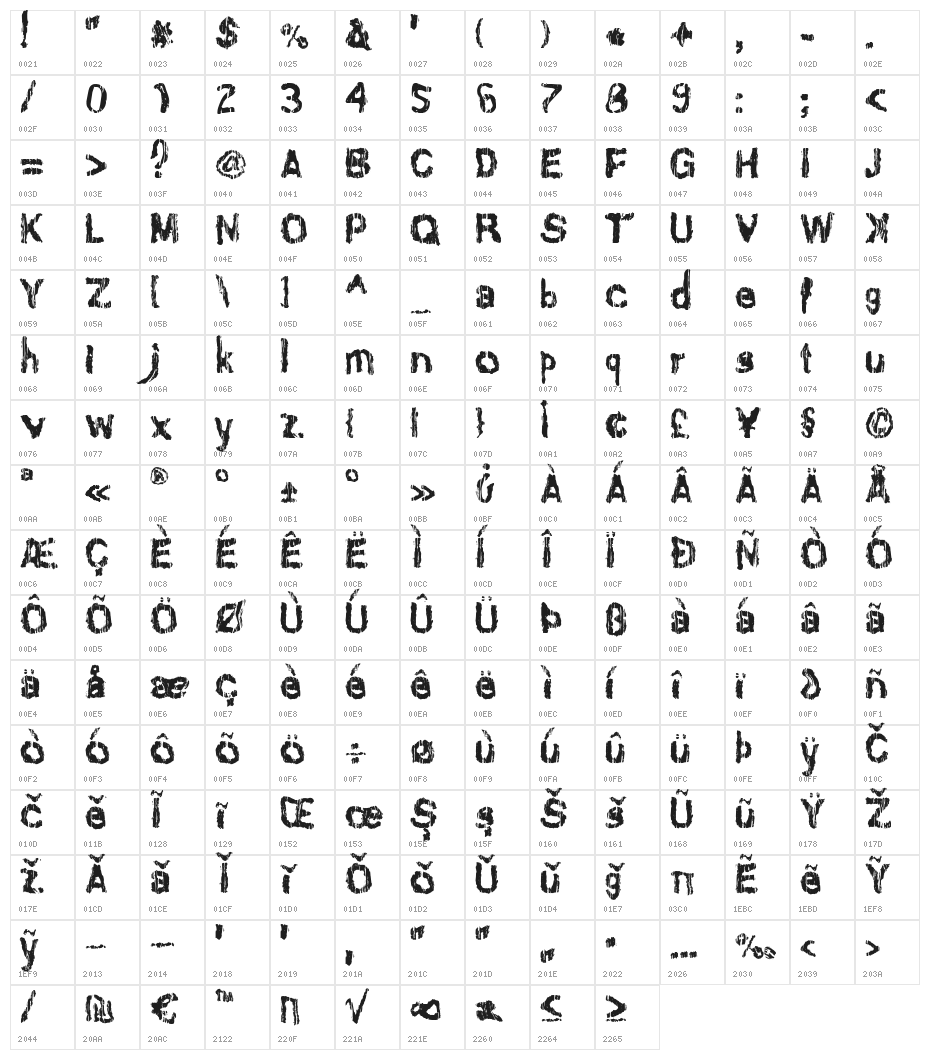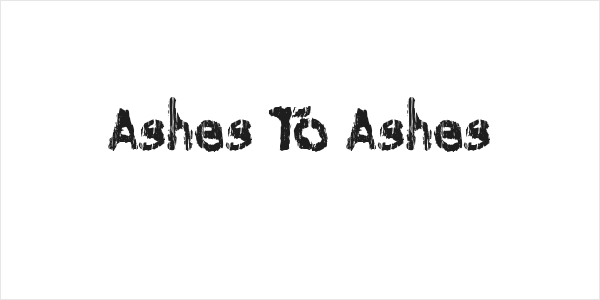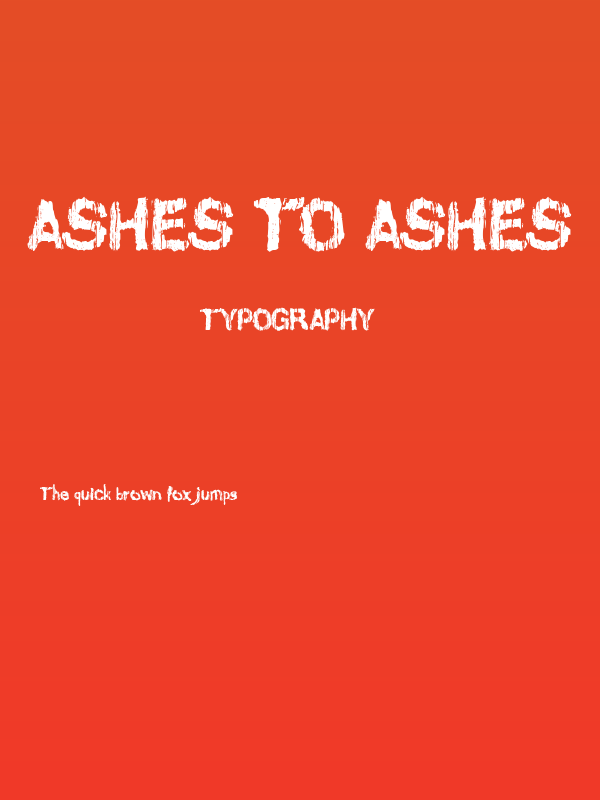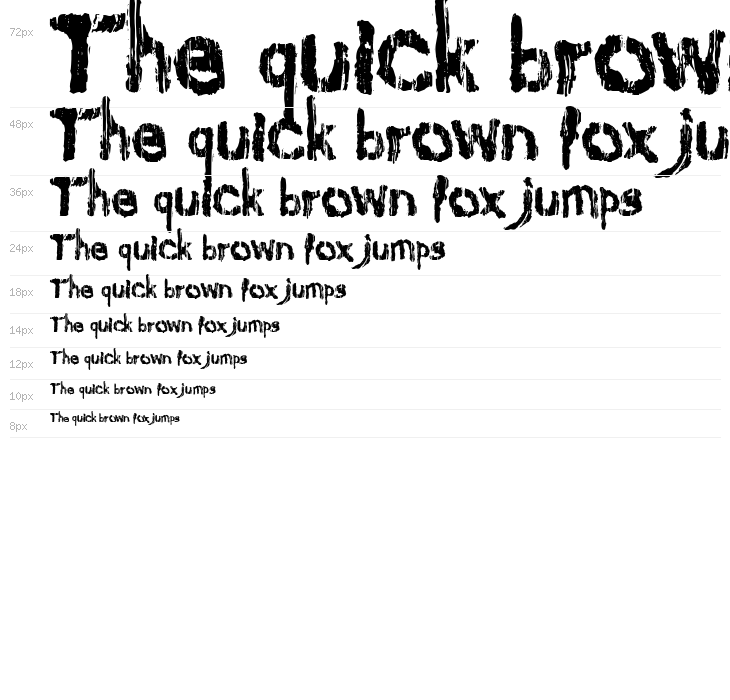
Ashes To Ashes Font
Ashes To Ashes Description
This font features a distressed, grunge style with a rough, textured appearance. The characters appear as if they have been eroded or weathered, giving them a unique, worn look. The uppercase and lowercase letters maintain a consistent style, with irregular edges and a bold presence. Numbers and special characters follow the same aesthetic, enhancing the overall cohesive design. This font is ideal for projects that require a rugged, edgy feel, such as posters, album covers, or any creative work that aims to convey a sense of rawness or authenticity.
| Overall Style | Grunge, Distressed |
| Proposed Projects | Ideal for posters, album covers, and creative projects needing a rugged, edgy feel. |